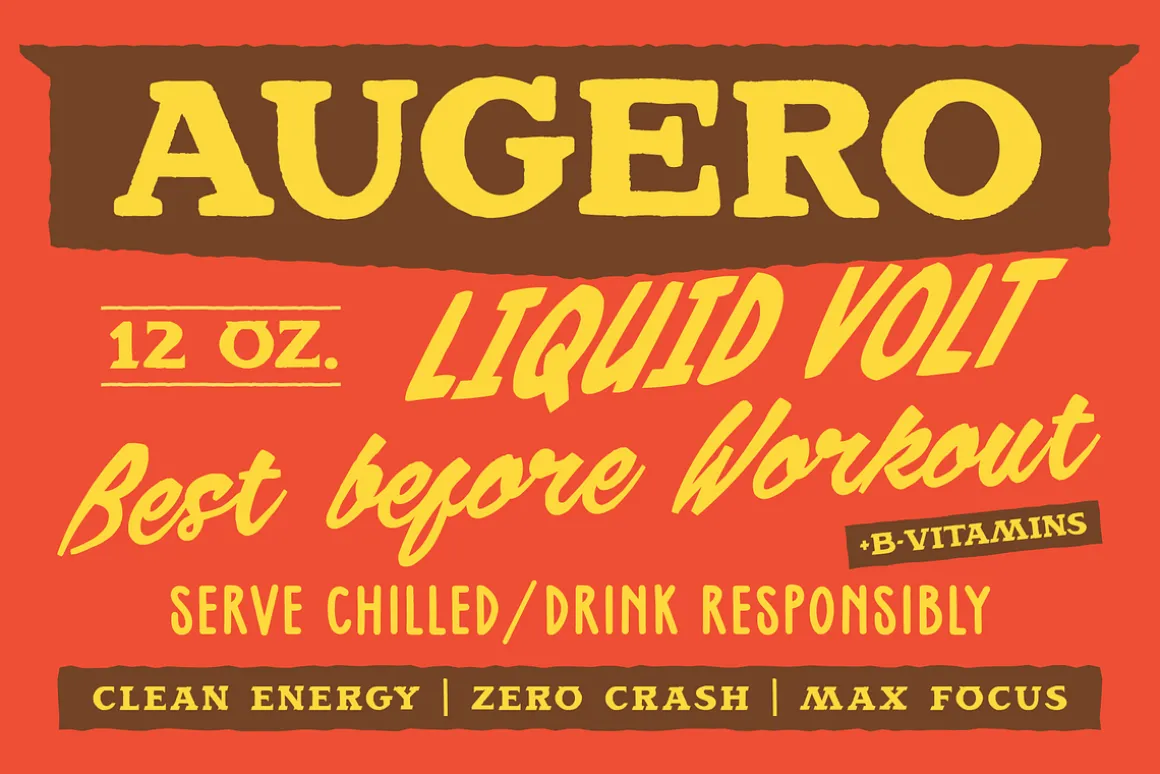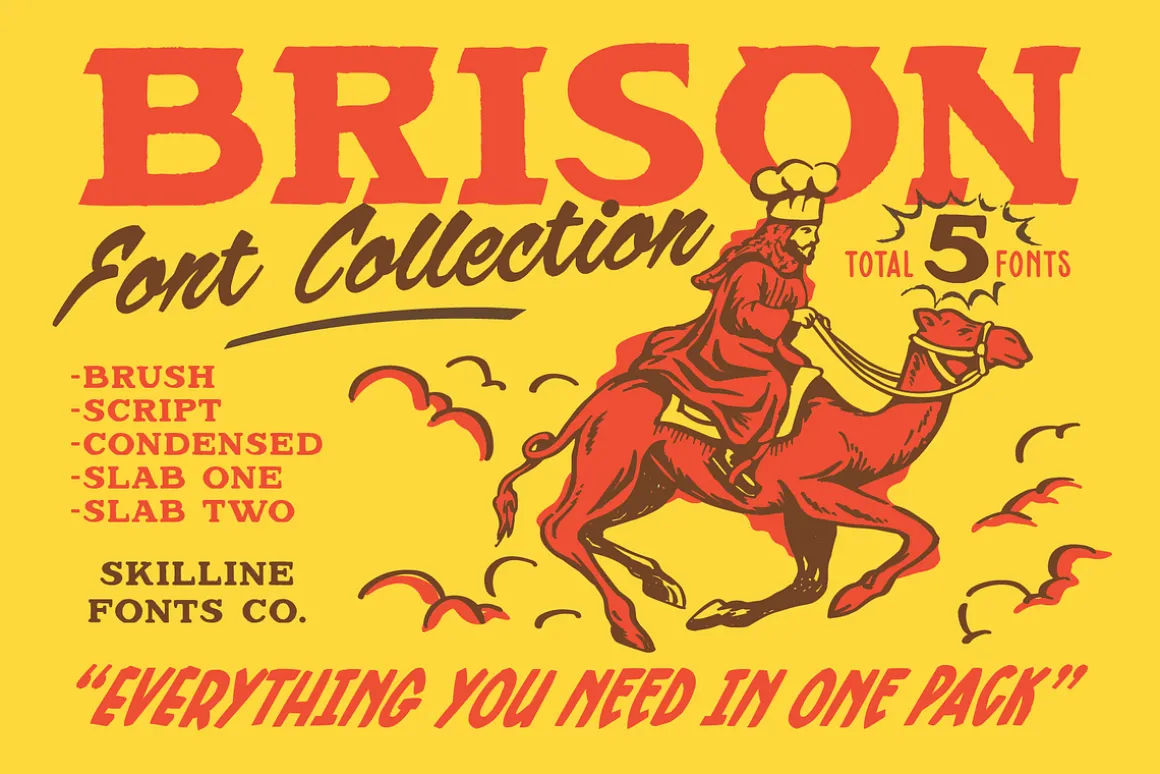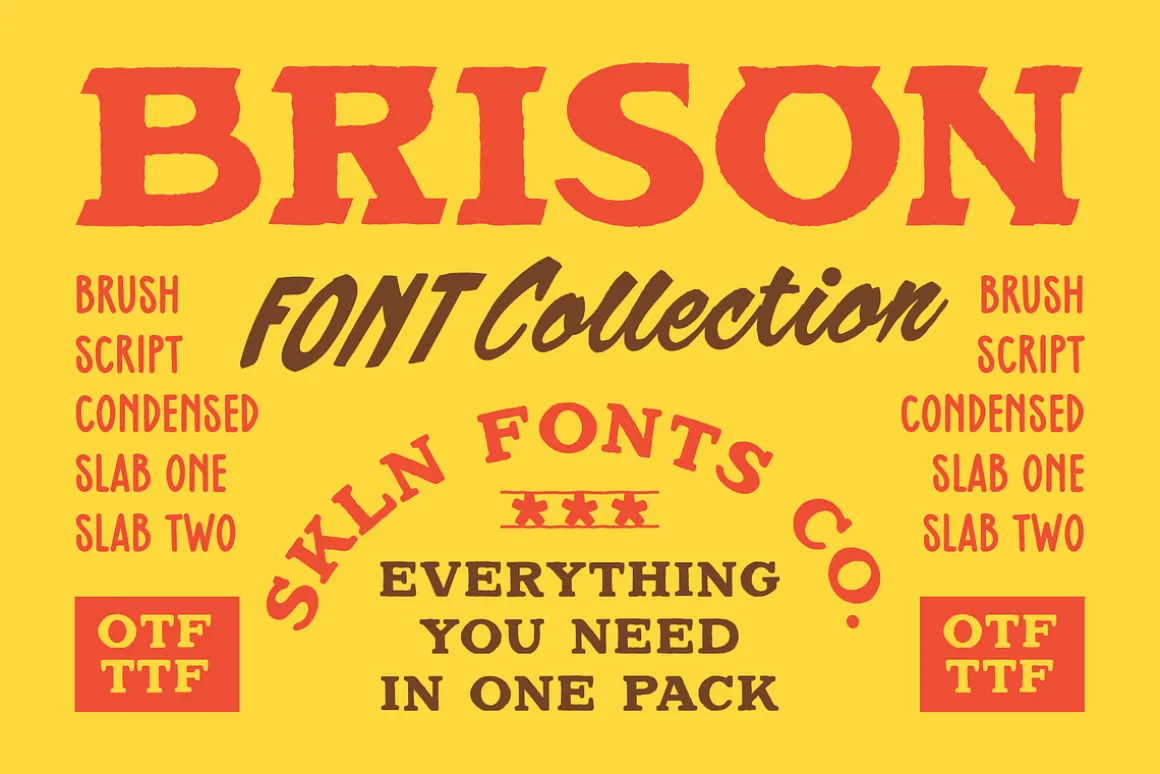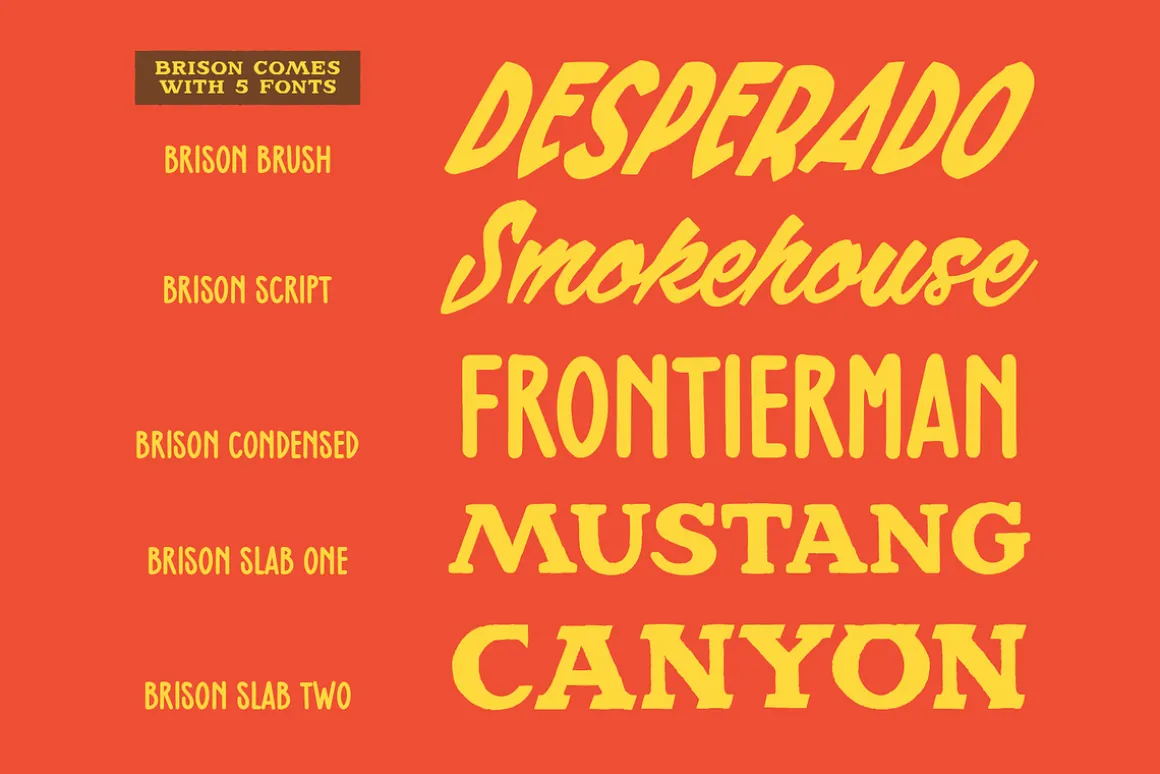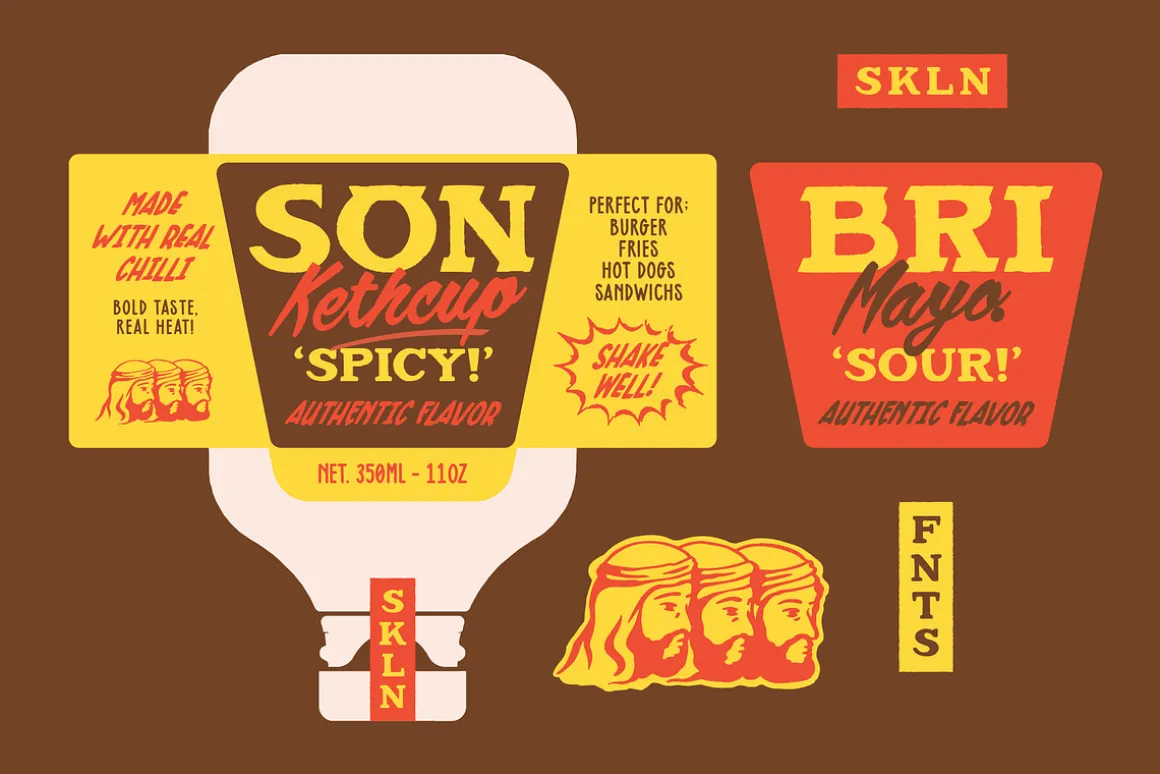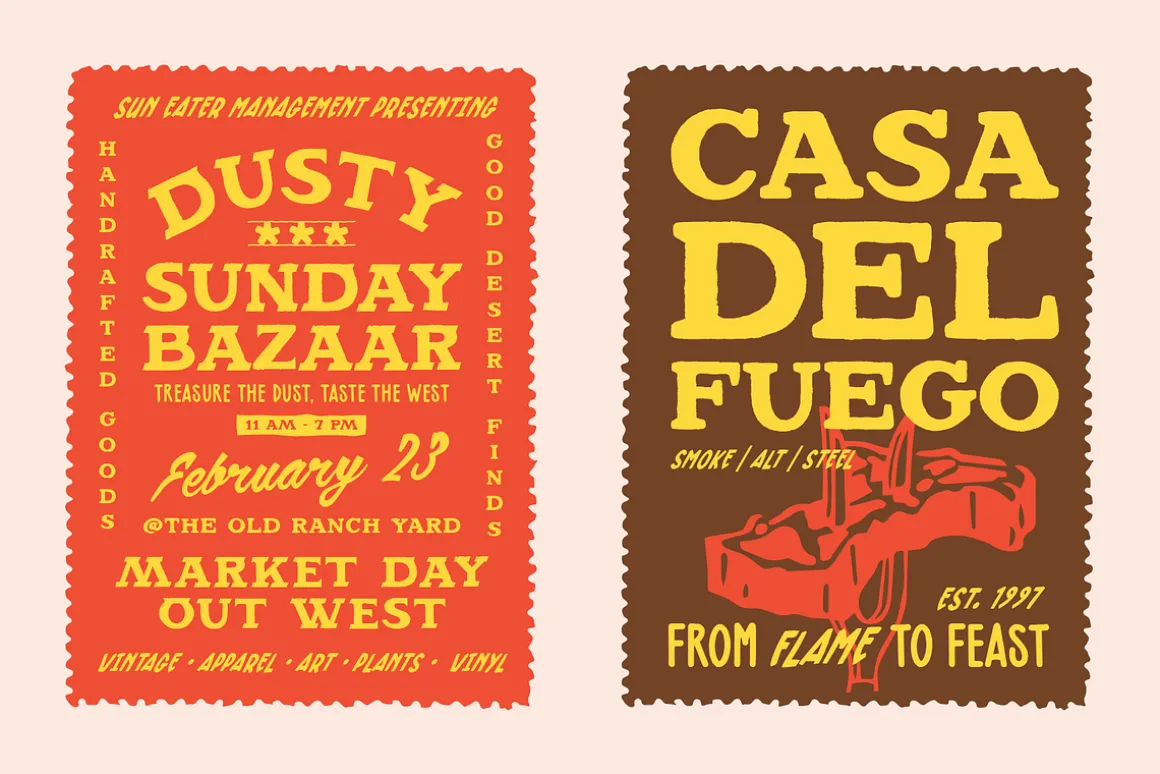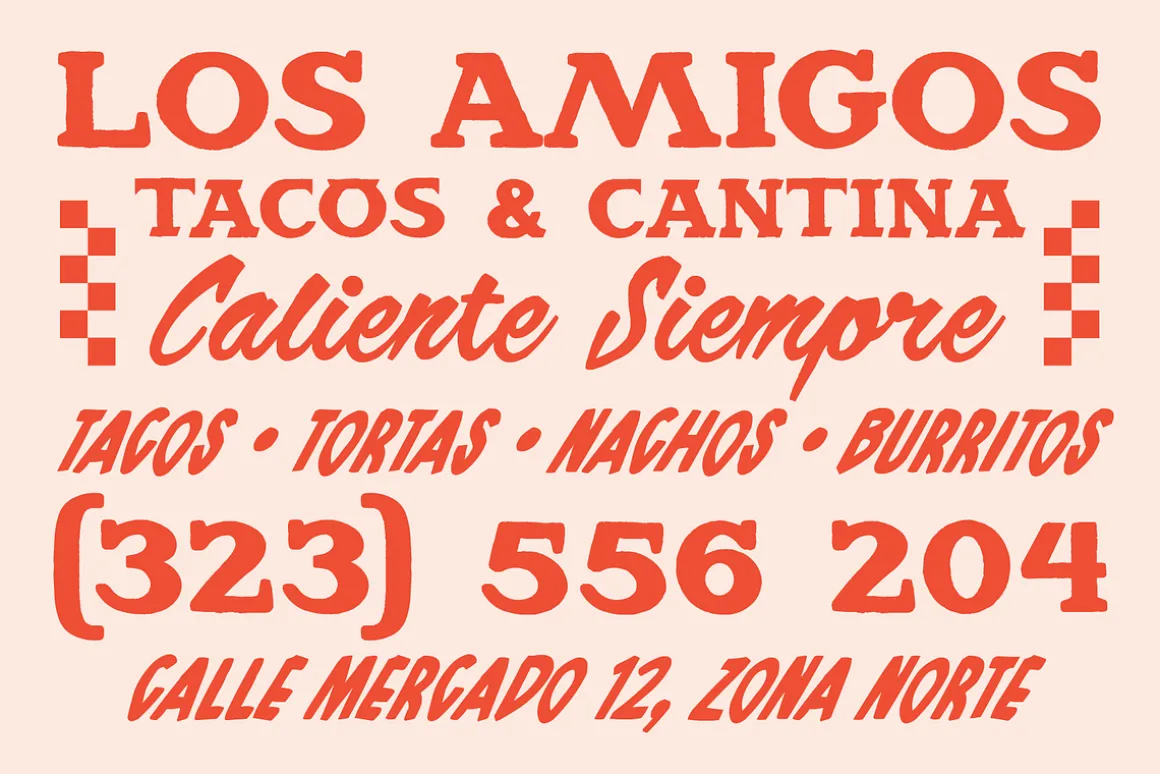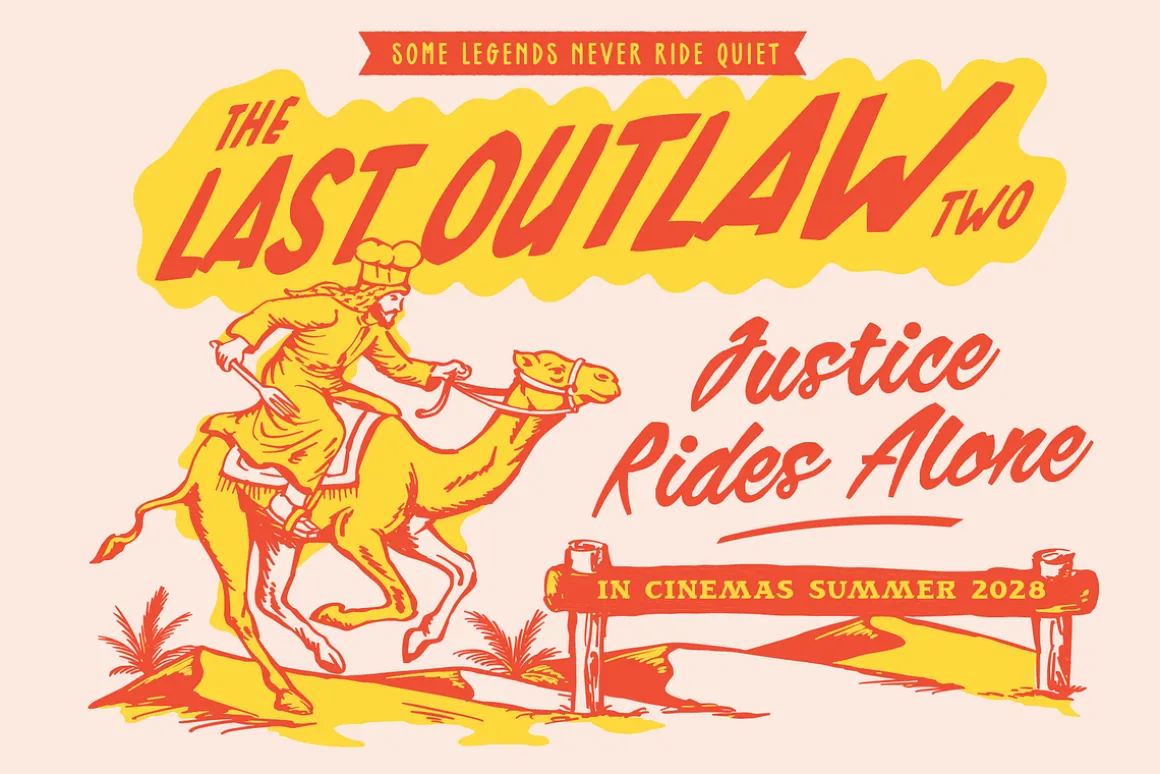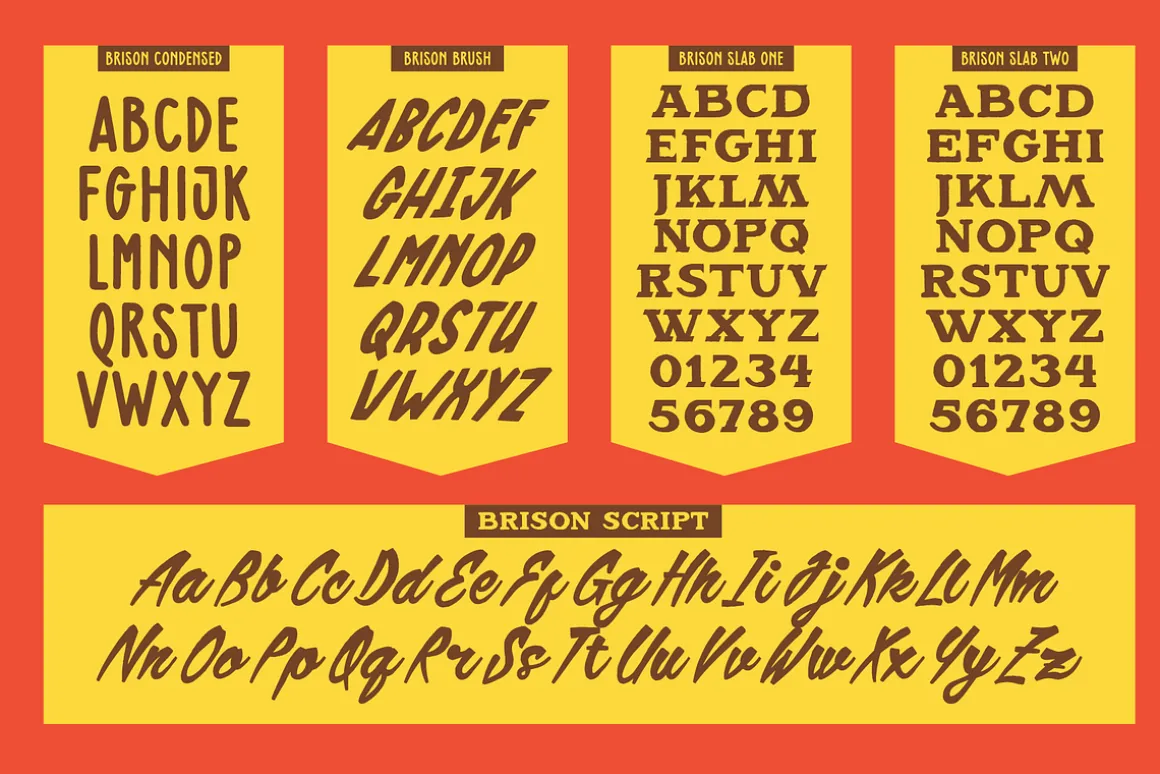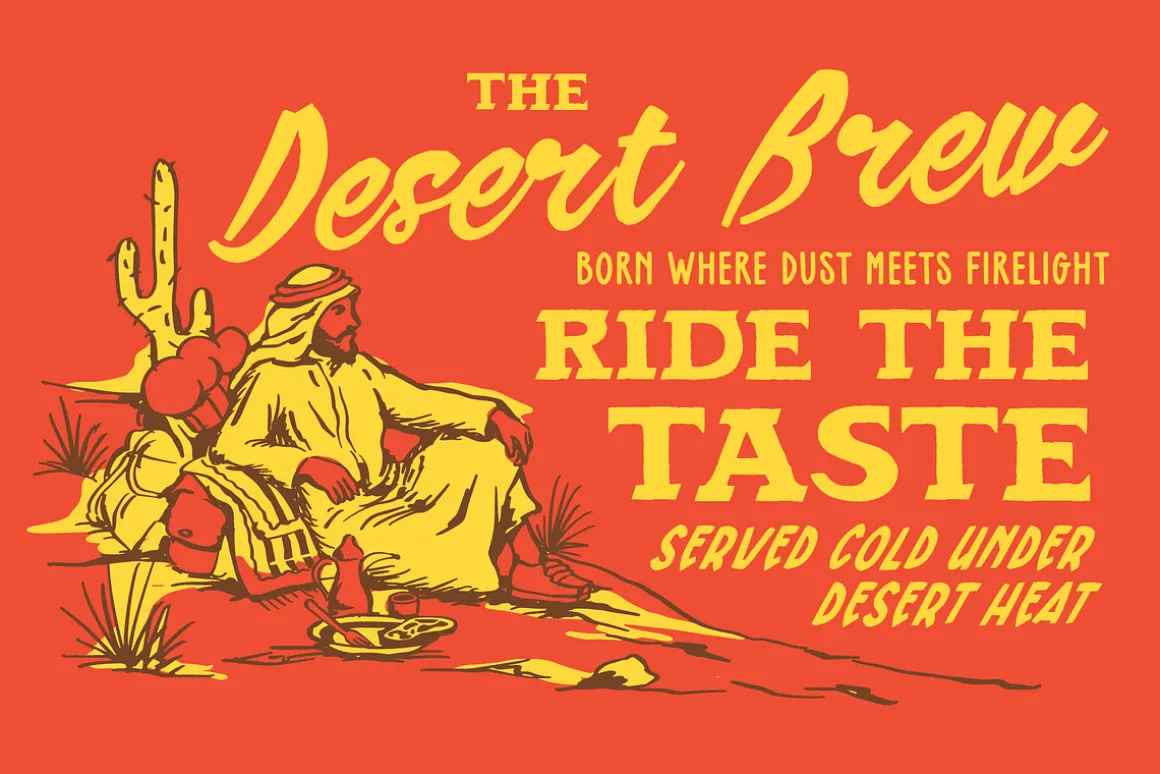
SFC Brison Font Collection is a bold retro western typeface bundle crafted for designers who want authentic vintage energy with strong commercial versatility.
Inspired by classic smokehouse signage, desert roadside graphics, old ranch typography, western cinema posters, and vintage Americana packaging, Brison delivers a rugged handcrafted look across 5 distinct styles designed to work seamlessly together.
From BBQ branding and hot sauce labels to cantina menus, packaging, western apparel, and retro poster design, Brison gives your work unmistakable bold character.
Included Styles
Brison Brush
Brison Script
Brison Condensed
Brison Slab One
Brison Slab Two
Font Features
Uppercase & Lowercase Characters
Numbers & Punctuation
Multilingual Support
Easy Font Pairing